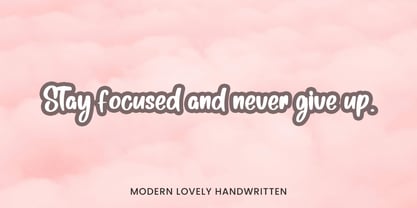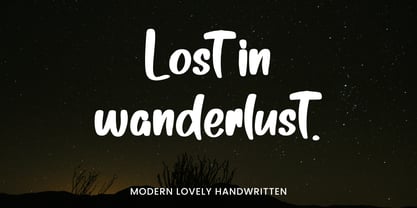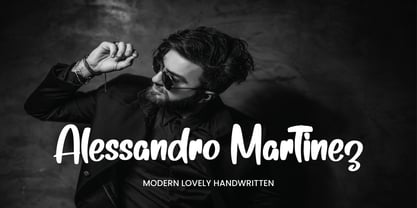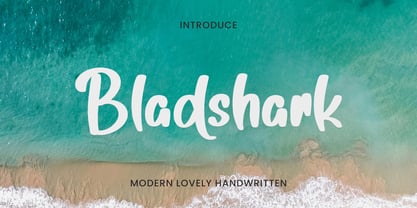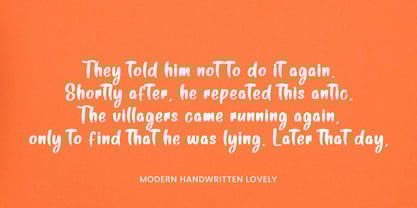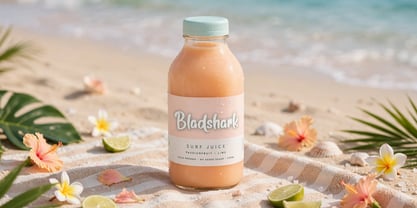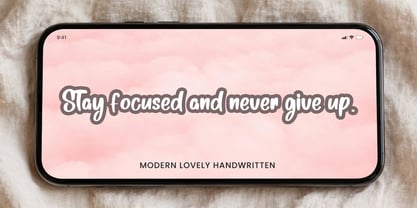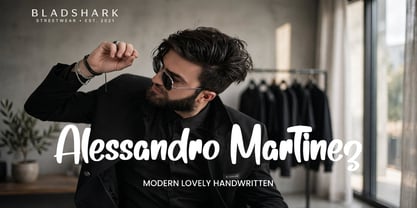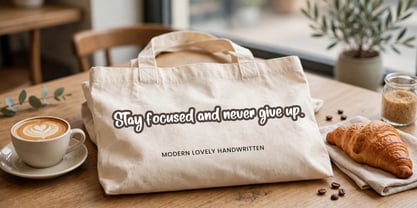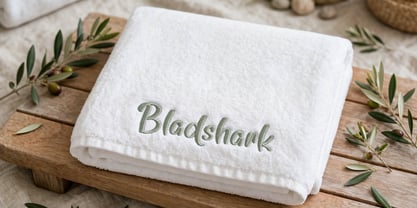
Bladshark
by Ayska
The Bladshark Font Family was designed by Dhoni Trihatmoko and published by Ayska. Bladshark contains 1 styles. More about this family
Bladshark is a casual handwritten font. Perfect for greeting cards, wedding stationery, photographer watermarks logos, modern websites, apparel design and more.